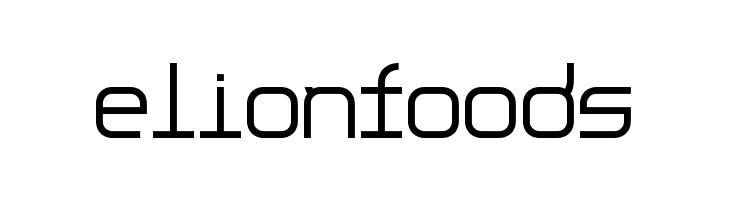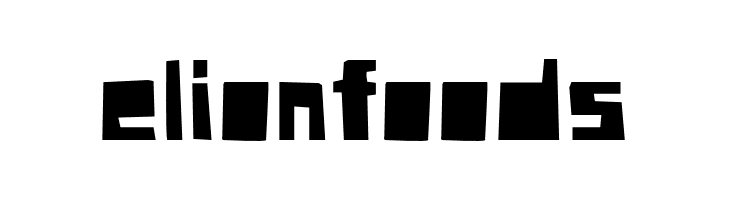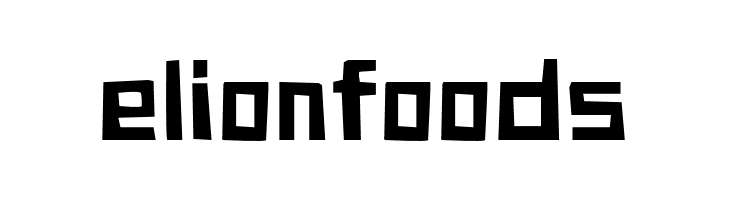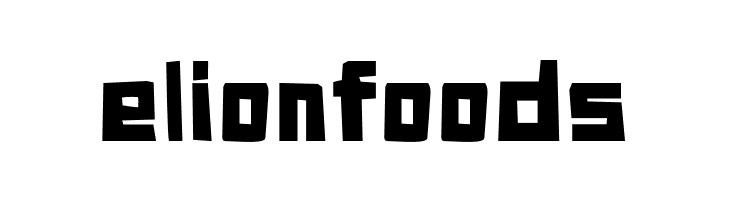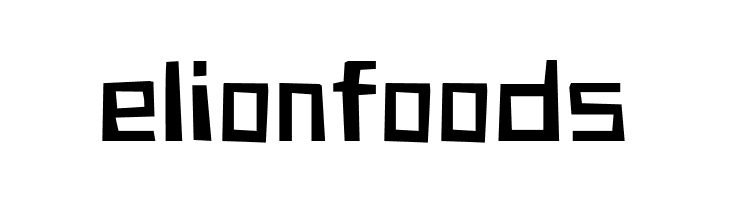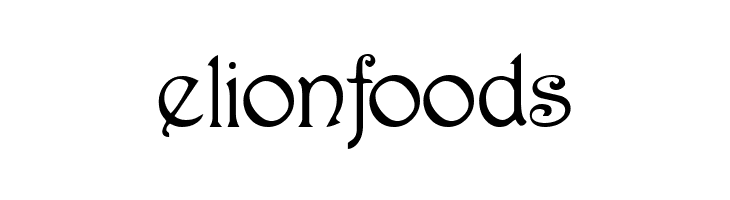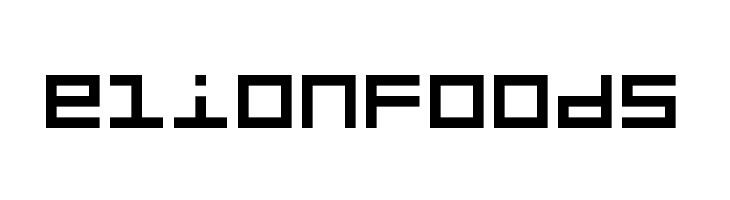
• PaperJohnnyDrei-Regular
A bold, irregular, and handcrafted font with a playful, geometric style.
• PaperJohnnyEineinhalb-Regular
A bold, angular font with geometric shapes and a monospaced appearance.
• PaperJohnnyEinhalb-Regular
A bold, angular font with a modern and geometric style.
• PaperJohnnyEins-Regular
A bold, playful font with an irregular, hand-crafted appearance.
• PaperJohnnyZwei-Regular
A bold, geometric font with angular, blocky characters.
• Parallello
A modern, geometric font with parallel line motifs and consistent stroke width.
• Pardoes
A bold, geometric font with a modern, digital aesthetic.
• PardonAgain
Cartoon illustration-based decorative font with unique character drawings.
• PardonThankYou
A playful, cartoon character-based decorative font.
• Parisian Normal
An elegant and decorative font with ornate serifs and artistic flourishes.